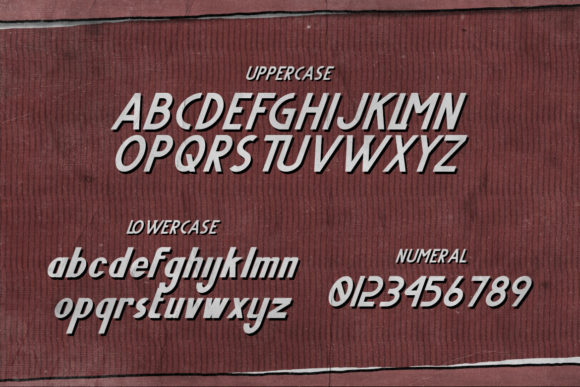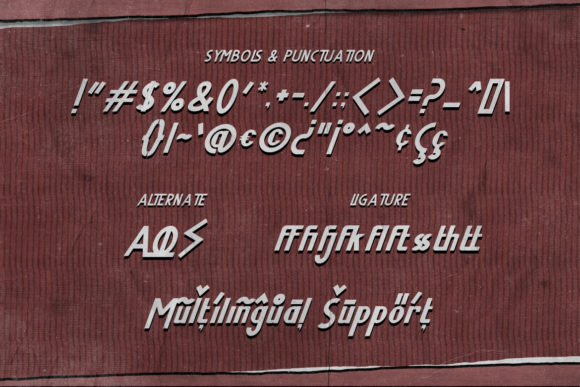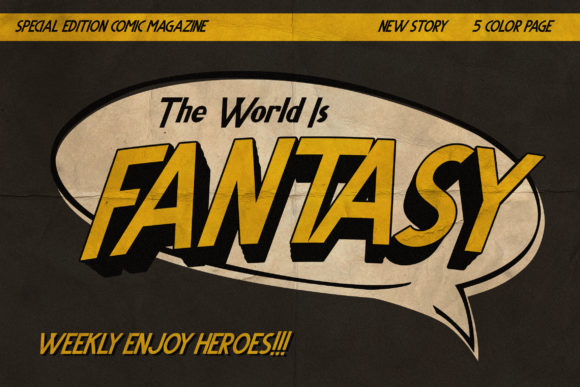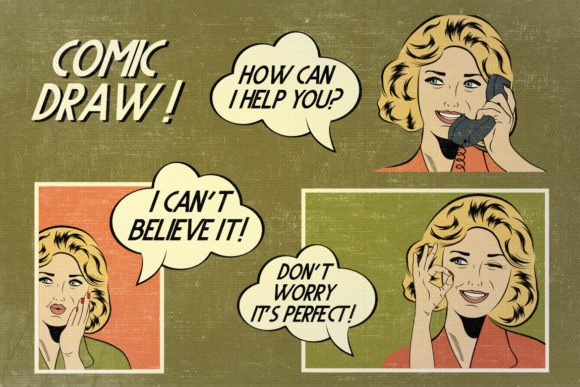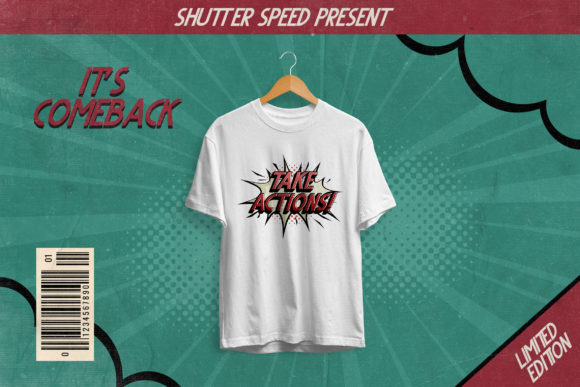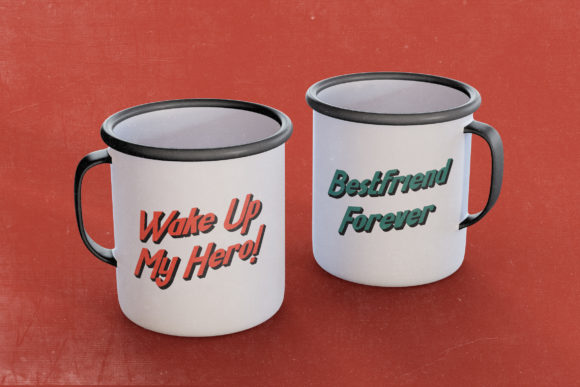
Introduction to Shutter Speed Font
As a designer, there’s nothing quite like the thrill of stumbling upon the perfect font to elevate your creative project. It’s that moment when the words start flowing, and the design begins to take shape. For me, it was the day I discovered the Shutter Speed Font – a bold, simple, and adaptable display font that quickly became my go-to for any project that needed a touch of personality.
What sets the Shutter Speed Font apart is its unique charm, making it a valuable addition to any designer’s toolkit. Whether you’re working on a branding project or a social media campaign, this font is sure to turn heads. With its transparent background and high-quality design, you can be confident that your project will stand out from the crowd.
Key Features of Shutter Speed Font
- Unique, high-quality font design perfect for creative projects
- Includes a transparent background, allowing for seamless integration into various backgrounds
- Features a large character set, including uppercase and lowercase letters, numbers, and punctuation
- Perfect for use in photography-inspired designs, fashion projects, and other creative endeavors
Honest Review: Shutter Speed Font
I recently came across the Shutter Speed Font, a free download that caught my attention with its unique design. As a designer, I’m always on the lookout for high-quality design resources to elevate my creative projects.
What works well for the Shutter Speed Font is its versatility. The font is perfect for a variety of design applications, from logo design to web development, and even print materials. The font’s clean and modern aesthetic makes it a great addition to any design project.
The font also has a transparent background, making it easy to layer over other design elements. This feature is particularly useful for designers who need to create visually appealing and complex compositions.
- High-quality design perfect for creative projects
- Perfect for logo design, web development, and print materials
However, I did find a few limitations with the Shutter Speed Font. The font is limited in its character set, which may not be ideal for designers who need a wide range of characters to work with.
Overall, I’m impressed with the Shutter Speed Font. It’s a high-quality design resource that’s perfect for designers who want to add a touch of modernity to their creative projects.
Shutter Speed Font
The Shutter Speed Font is a high-quality design resource that can add a creative touch to your projects. This font features a transparent background, making it easy to integrate into various design platforms.
Tips for Getting the Most Out of Shutter Speed Font
Here are some tips for getting the most out of the Shutter Speed Font: use it in combination with other design elements, such as graphics or images, to create a visually appealing design. Experiment with different font sizes, colors, and styles to find the perfect look for your creative project.
Common Use Cases for Shutter Speed Font
The Shutter Speed Font is suitable for a wide range of creative projects, including: social media graphics, presentations, posters, and brochures. It’s also a great font to use for headings, titles, or body text in documents and presentations.